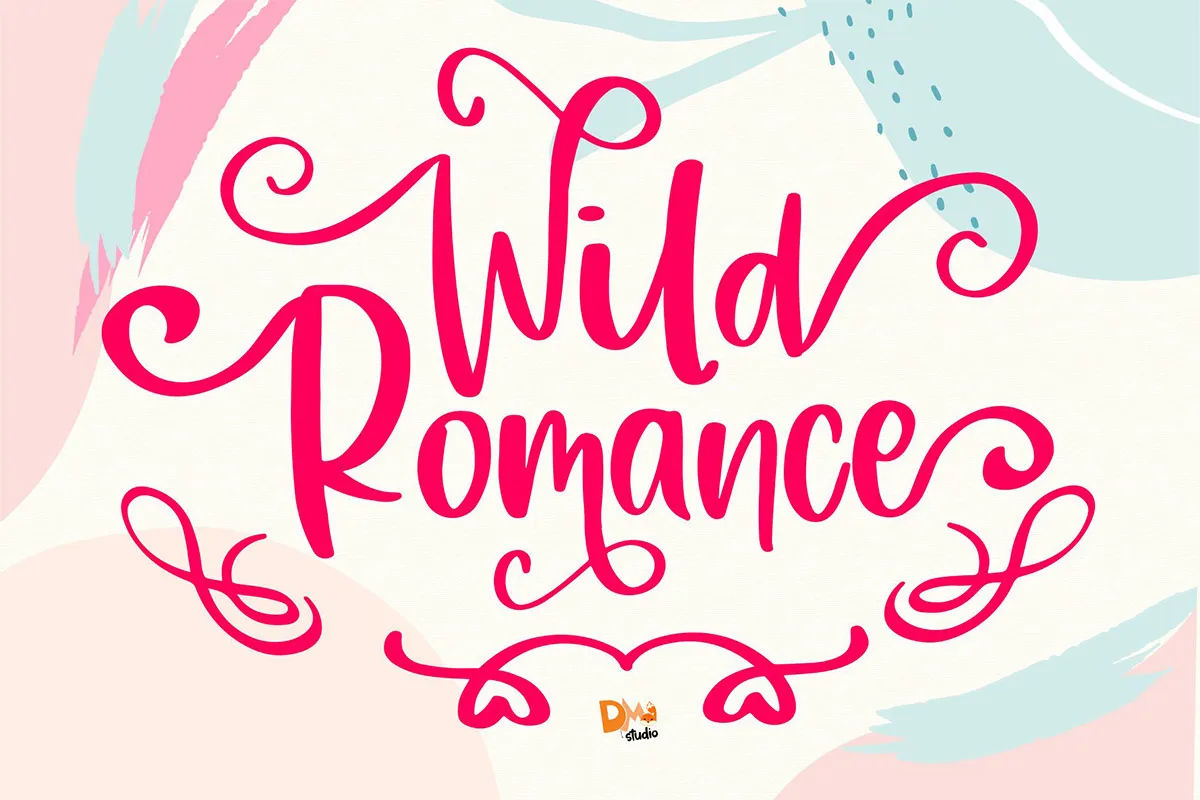
30 Best Font for Professional Logo Designs Across Industries
Every business needs strong branding to stay competitive in saturated markets. Typography is one key element in shaping a brand’s identity and creating a lasting impression. Therefore, the best font for professional logo designs can help convey a brand’s values and personality, setting it apart from the competition.
Key Takeaways:
• The right fonts are crucial to convey professionalism and ensure your brand resonates with the target audience.
• Different industries require distinct font styles; finance needs neat and clean fonts, while entertainment can use more elaborate fonts.
• A well-chosen font can create a memorable and impactful logo, helping your brand stand out in a competitive market.
5 Classic Fonts for Corporate and Finance
1. Trevor
Trevor is a modern sans-serif typeface with a clean, geometric shape. Due to its professionalism and timeless appeal, it is the best font for professional logo designs.
2. Melvick
With a solid and clean structure, Melvick presents trustworthiness and authority, making it an excellent choice for professional corporate branding.
3. Sparkling Bright
Sparkling Bright offers two variants: a classic serif and an elegant script font. This perfect combination makes it one of the best professional fonts for logos.
4. ROSA
ROSA has a versatile and stylish design for finance business logos, elevating your brand with a bit of fancy taste.
5. BrightSouth
BrightSouth blends casual and professional, perfect for corporations seeking a friendlier tone.
5 Eye-Catching Fonts for Entertainment and Media
1. Shade Blue
With its 80s neon vibe, Shade Blue is the best font for professional logo designs, highlighting nightlives and a retro vibe.
2. Bavalor
Bavalor offers a vintage atmosphere and is also great for Wild West themes, adding a nostalgic charm.
3. Wild Romance
Wild Romance can add a romantic touch to your brand with its smooth lines and decorative details.
4. Sour Crunch
Add a comical atmosphere to your brand with Sour Crunch, a fun font for casual projects.
5. Dark Silence
Bring a horror vibe to your logo with Dark Silence font that will make your audience feel chills.
5 Flavorful Fonts for Food and Beverage
1. Sugar Donut
Sugar Donut font features four unique variants, making your logo more tasteful and playful.
2. Rochette
Rochette is the best font for professional logo designs, especially for exclusive brands. It can elevate your F&B business to the level of a 5-star restaurant.
3. Fresh Baked
Fresh Baked is a delightful font that promotes a warm and friendly tone, perfect for cozy and inviting branding.
4. Light Shade
Light Shade will be an unforgettable logo for beverage brands. Its thin, delicate letterform evokes a warm, casual atmosphere.
5. Bubble Mint
Bubble Mint feels fresh and organic. It’s well-suited for branding sweets, beverages, or bakeries.
5 Empowering Fonts for Education and Coaching
1. School Mania
Playful and eye-catching, School Mania is a fantastic font to make learning interesting for kids.
2. KOBO
As the best font for professional logo designs, Kobo provides excellent legibility and a sleek design.
3. Artsy
Artsy is the best font for a professional logo in the creative industry. It features cursive and smooth strokes, evoking a sense of art and craftsmanship.
4. Menzanine
Menzanine’s bold, stamped look conveys confidence and power, so it is impeccable for powerful headlines in training, seminars, or sports coaching.
5. Gothix
Gothix is flawless for powerful visuals like sports coaching branding and motivational materials thanks to its aggressive brushstroke texture.
5 Stylish Fonts for Fashion and Beauty
1. La Rosie
La Rosie is a stylish handwritten font with dashing curves. It’s the best font for professional logo designs, particularly for high-end fashion labels and beauty products.
2. Sanggria
Sanggria is a classic calligraphic typeface with lovely strokes that are wonderful for premium logos.
3. Romanttica